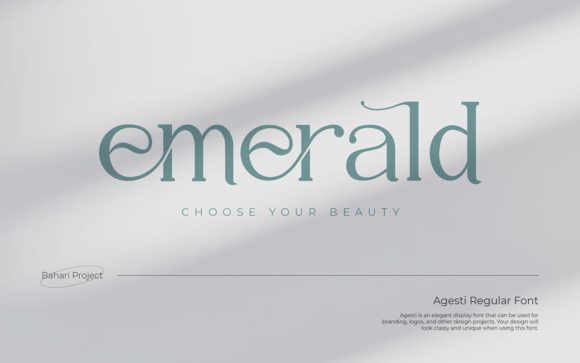
Immerse yourself in the realm of sophistication and allure with Agesti, the serif font that elevates your designs to unparalleled heights. Crafted with meticulous attention to detail, Agesti exudes an air of timeless elegance that captivates the eye and stirs the soul.
Whether you're embarking on a branding journey, seeking inspiration for logos, or simply desiring a touch of refinement in your design endeavors, Agesti stands as the perfect companion. Its graceful curves and sweeping strokes dance across the page, evoking a sense of luxury and refinement that sets your creations apart from the ordinary.
But Agesti's allure extends far beyond its aesthetic charm. Its versatility knows no bounds, seamlessly adapting to a myriad of design needs. From the pages of captivating books to the bold headlines of magazines, Agesti weaves its magic, transforming words into works of art.
For those seeking a touch of allure in their business correspondence, Agesti offers a polished and professional edge. Its crisp lines and elegant serifs lend a sense of authority and credibility to your communications, ensuring that your messages are received with the respect they deserve.
The world of fashion finds its perfect match in Agesti, where it becomes an indispensable tool for designers seeking to create unforgettable impressions. From sleek logos to eye-catching posters, Agesti captures the essence of style and sophistication, elevating your designs to the forefront of the fashion world.
And for those who dare to venture into the realm of multimedia, Agesti emerges as a beacon of clarity and visual appeal. Its readability shines through in presentations, videos, and web designs, ensuring that your messages captivate audiences and leave a lasting impact.
As you navigate the vast landscape of corporate design, Agesti stands as a trusted guide, leading you towards success. Its adaptability and timeless appeal make it the perfect choice for branding, logos, and any other design project that demands both professionalism and a touch of creative flair.
With Agesti, your designs transcend the mundane and embrace the extraordinary. Its beauty, versatility, and elegance empower you to create a visual masterpiece that captivates, inspires, and leaves an unforgettable mark on the world.
Embrace the allure of Agesti today and unlock a world of design possibilities where sophistication and style intertwine seamlessly. Let this elegant serif font guide you towards creative triumphs that will turn heads and leave a lasting impression.